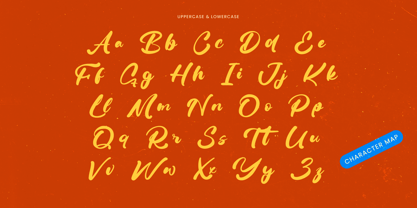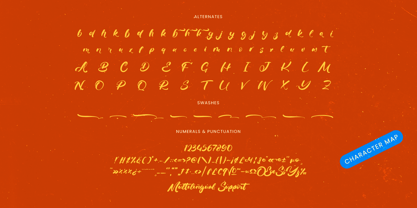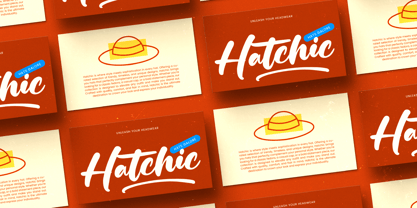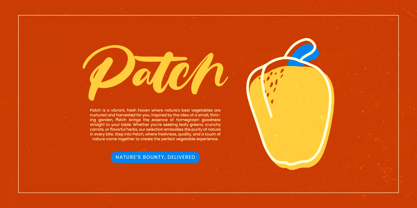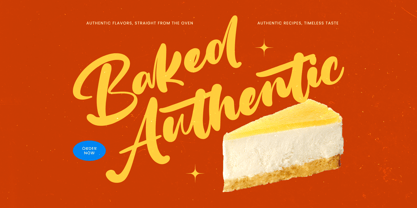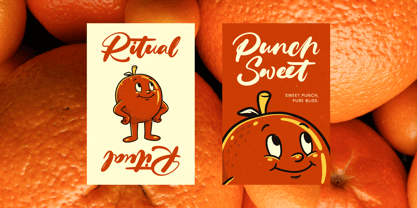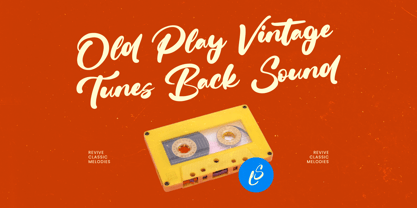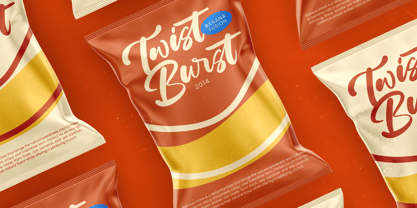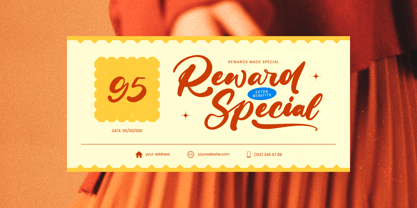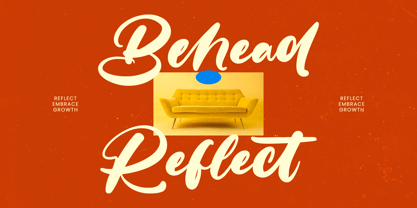
Delicate Routine
by Letterena Studios
The Delicate Routine Font Family was designed by Heru Utama Putra and published by Letterena Studios. Delicate Routine contains 2 styles and family package options.
Delicate Routine – Bold Handwritten Font , from Letterena, is a Luxury Script font, suitable for any projects such as: logos, branding projects, homeware designs, product packaging, mugs, quotes, posters, shopping bags, t-shirts, book covers, name card, invitation cards, greeting cards, label, photography, watermark, special events, and all your other luxury and beautiful projects that need a Luxury Script taste.